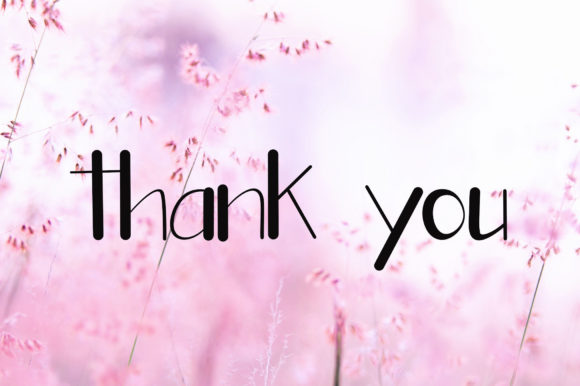
The Sweet Spot: Discovering Butter New Font
I’ll never forget the time I was working on a project for a client’s wedding invitation suite. I had the design concept nailed, but something was missing – the perfect font. I scoured the internet, tried out dozens of fonts, but none seemed quite right. That was until I stumbled upon Butter New Font. It was like the clouds parted, and the sun shone bright. The sweet, lively, and elegant feel of Butter New was exactly what I needed to bring the design to life.
So, what makes Butter New Font so special? Let’s dive into the good stuff:
- ✨ Simple, yet elegant script font that’s perfect for a variety of design projects
- ✅ Well-balanced and beautiful, making it a joy to work with
- 💫 Sweet and full of life, adding a touch of whimsy to your designs
- 🎨 Highly versatile, suitable for everything from wedding invitations to branding and packaging
But, like any font, Butter New isn’t perfect. A few quirks to keep in mind:
- 🤔 Some users may find the font a tad too ornate for very minimalist designs
- ⚠️ Limited availability of certain OpenType features, which may impact advanced typography
The Story Behind Butter New Font
Butter New Font was designed with the intention of creating a beautiful, yet simple script font that captures the sweetness of everyday life. The designer aimed to craft a font that’s both elegant and approachable, making it perfect for a wide range of design projects. While the exact story behind the font’s creation may be unknown, its charm and character have won over the hearts of many designers and crafters.
Q: Is Butter New Font suitable for body text?
A: While Butter New Font is beautiful, it’s primarily designed for display purposes. For body text, you may want to choose a font with better readability and legibility.